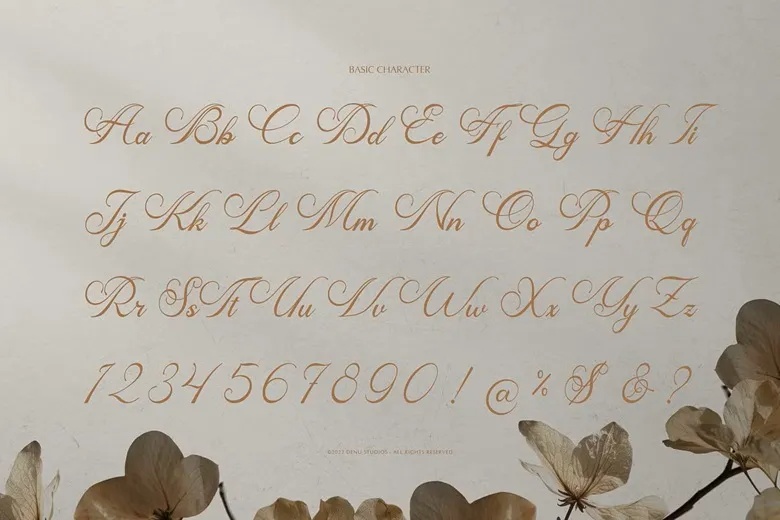
Mamylinus Font
Mamylinus is a stylish calligraphy script typeface perfect for a wide range of creative projects. Whether you’re designing logos, branding materials, homeware, product packaging, mugs, quotes, posters, shopping bags, t-shirts, book covers, business cards, invitations, greeting cards, labels, photography projects, special events, or anything else that needs a beautiful, elegant touch—Mamylinus delivers with charm and sophistication.
Mamylinus Calligraphy Script Font